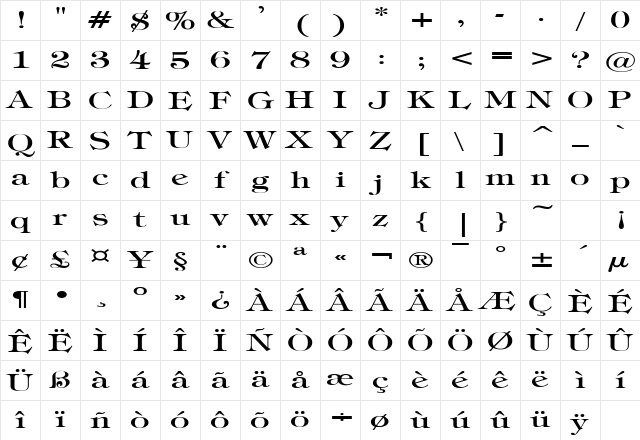
Design Context for JewelExtended
JewelExtended is a composed and adaptable typeface that performs quietly and consistently across a wide range of design contexts.